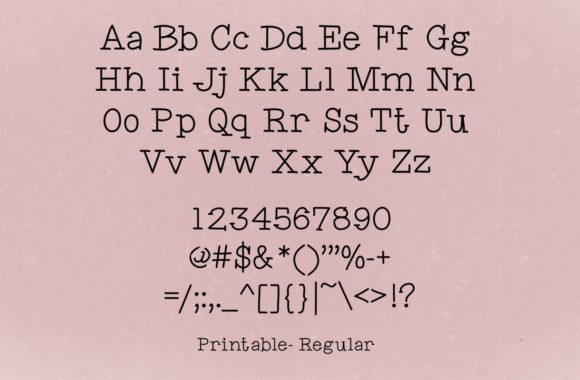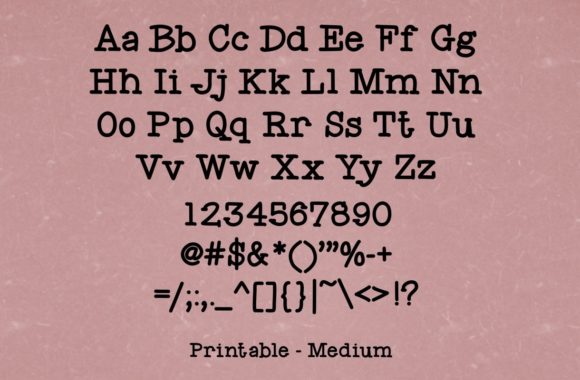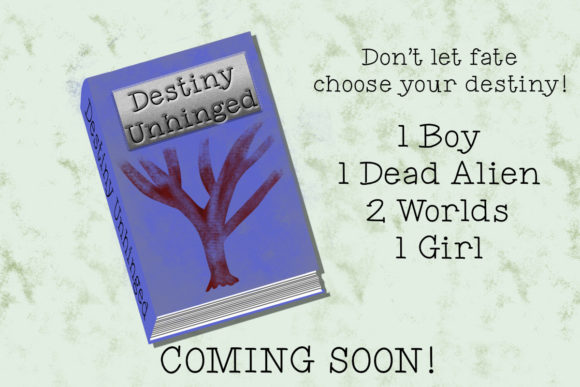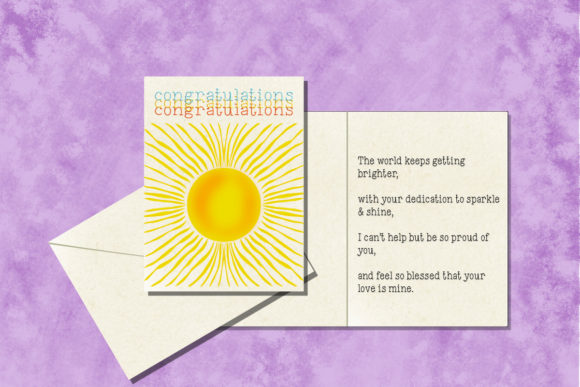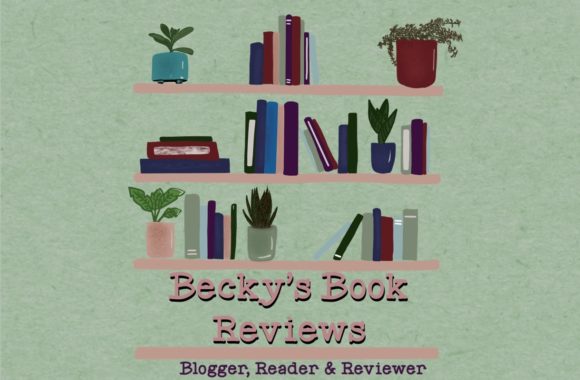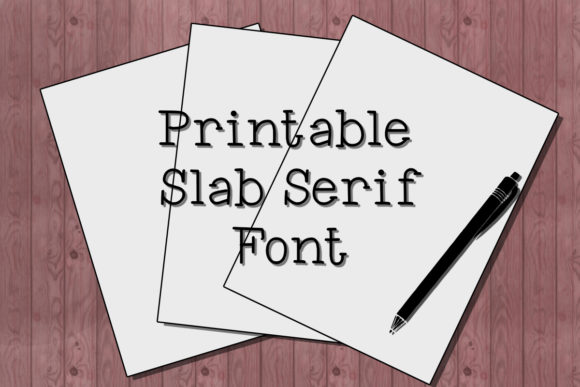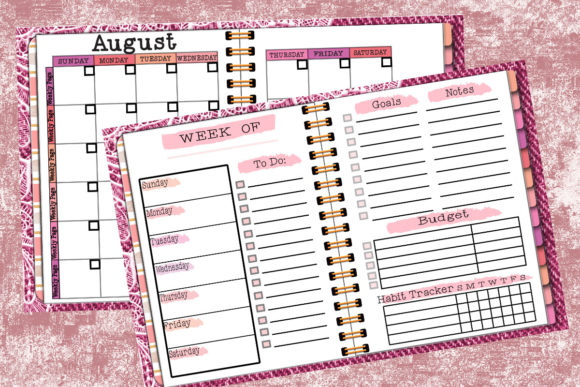
Printable
Printable: A Cool and Adaptable Slab Serif Font
Printable is a distinctive slab serif font that combines a cool, adaptable design with a clean, thin, and smooth vibe. This versatile typeface is perfect for a wide array of projects, ensuring your designs look polished and professional.
Key Features of Printable
• Cool Design: Features a trendy and appealing look that enhances any project.
• Adaptable Style: Easily matches various design contexts, from web to print.
• Clean Aesthetic: Offers a neat and tidy appearance, making it ideal for modern designs.
• Thin and Smooth Vibe: Provides an elegant touch that complements any creative idea.
• Slab Serif Structure: Maintains the characteristic thick, rectangular serifs typical of slab serif fonts.
Ideal Uses for Printable
Printable’s unique characteristics make it particularly well-suited for:
• Website headers and digital content that require clarity and style.
• Branding and logo design for a modern identity.
• Print materials such as brochures and flyers that need to convey professionalism.
• Social media graphics aimed at engaging audiences.
• Editorial layouts that require readable yet stylish typography.
When incorporating Printable into your designs, consider the following tips:
• Use for both headlines and body text to showcase its versatility.
• Experiment with different sizes to highlight the font’s clean details.
• Pair with complementary fonts to create contrast and visual interest.
• Take advantage of its adaptability in projects across various themes and styles.
Printable is an excellent choice for designers looking to add a cool and adaptable slab serif font to their typographic toolkit. Its clean, thin, and smooth vibe makes it stand out in the world of typography. Whether you’re working on logo designs, creating layouts for print projects, or developing digital content, Printable offers the perfect blend of style and functionality.
Add Printable to your creative projects and explore how it can enhance your designs with its elegant and adaptable nature. From striking headlines to polished text blocks, this font provides the tools to create impactful and memorable typography that resonates with audiences.